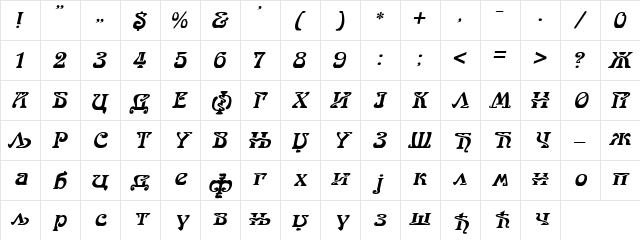
YU C Arabia is a composed and adaptable typeface that performs quietly and consistently across a wide range of design contexts. The slanted form adds forward momentum and visual energy.